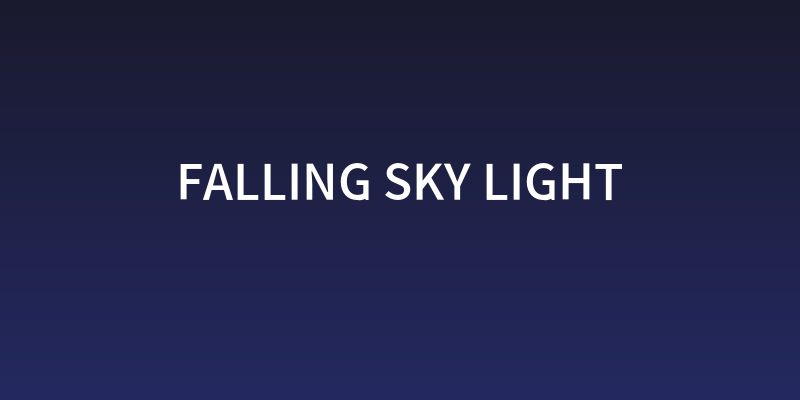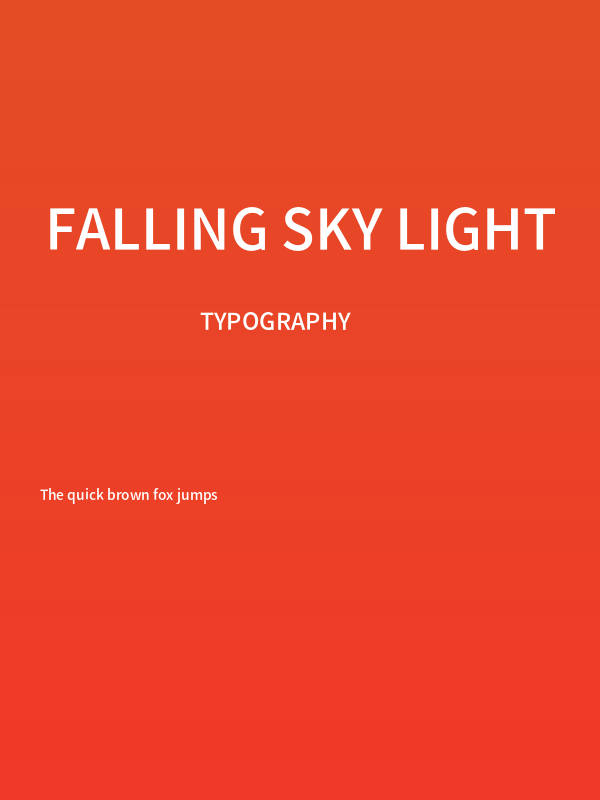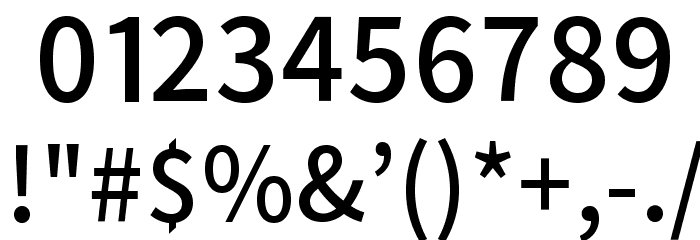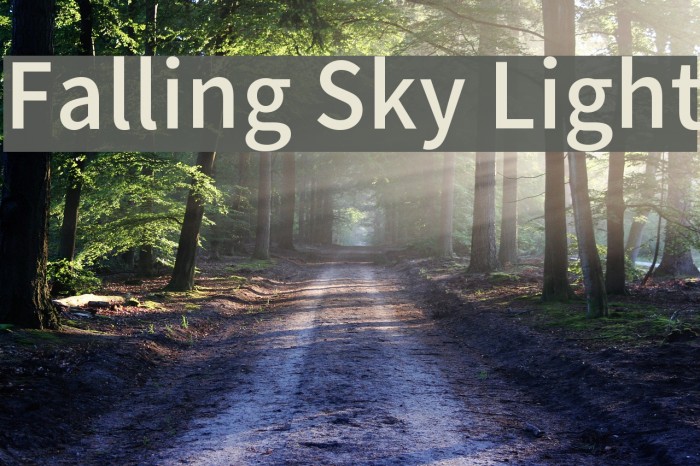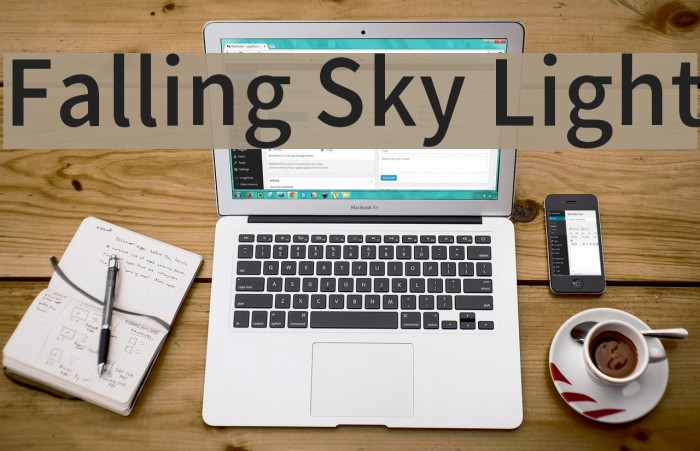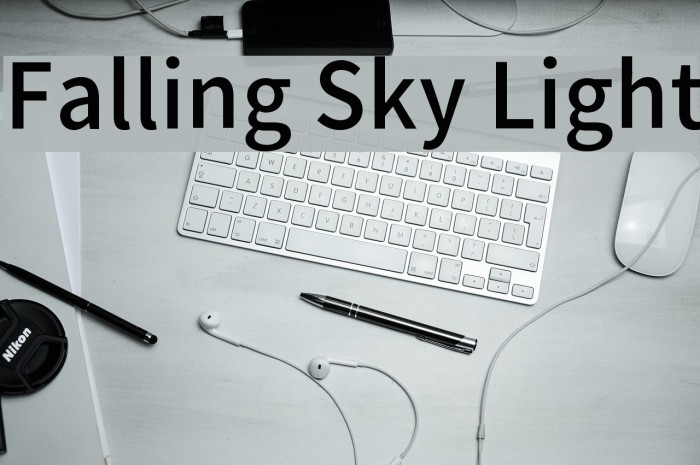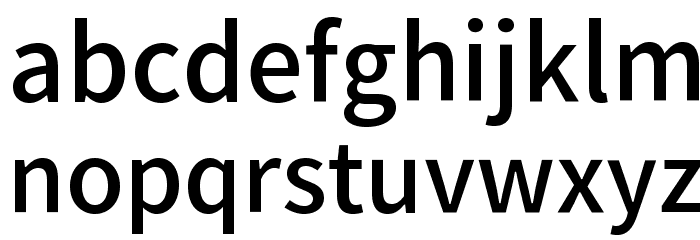
Falling Sky Light Font
Falling Sky Light Description
This font exhibits a clean and modern sans-serif style, characterized by its simplicity and readability. The letters are well-proportioned with a uniform stroke width, contributing to its legibility across various sizes. The design is minimalistic, avoiding any unnecessary embellishments, which makes it versatile for both digital and print media. The numerals and special characters maintain the same clarity and straightforwardness, ensuring consistency throughout the typeface. Its geometric shapes and balanced structure make it suitable for contemporary design projects.